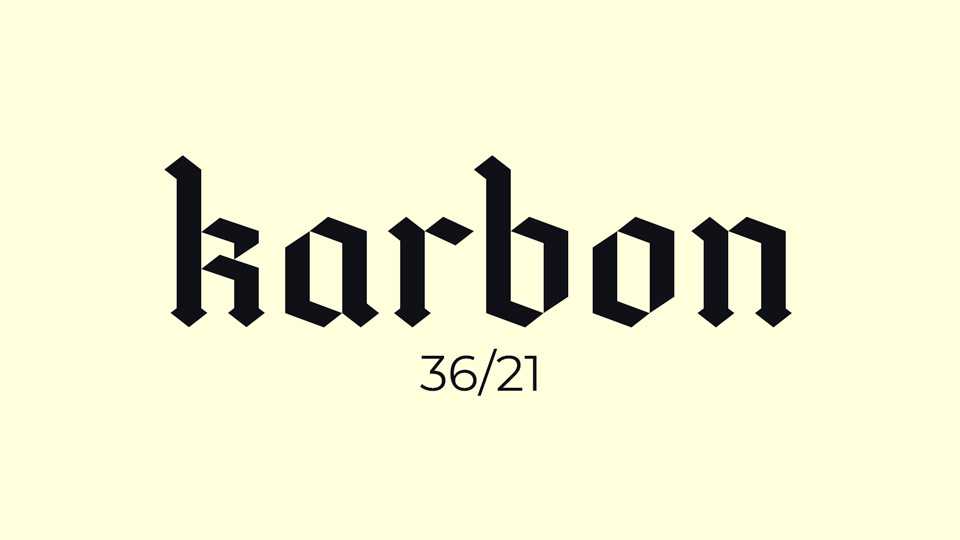
Download Karbon font, a blackletter style typeface that uses a very modular system for this design and really helps with the rhythm of the letters.
Designer: Justin Penner